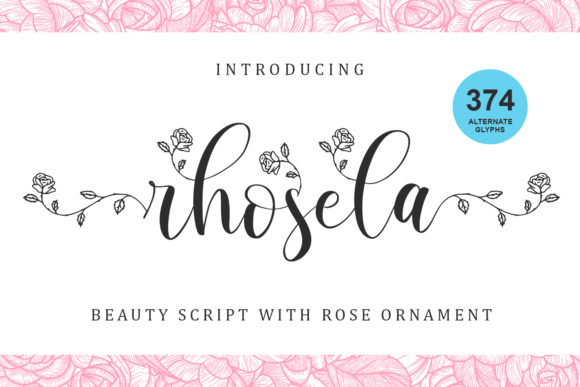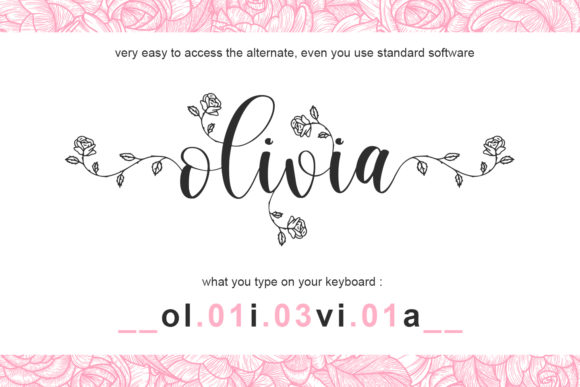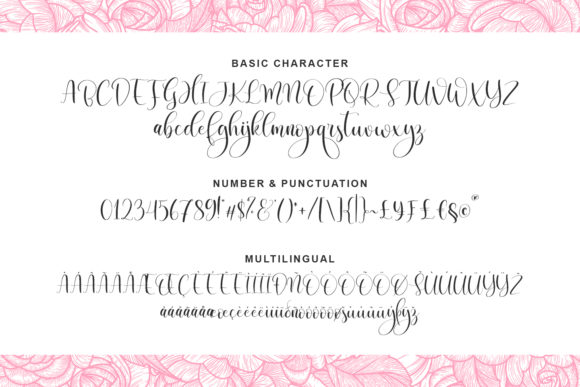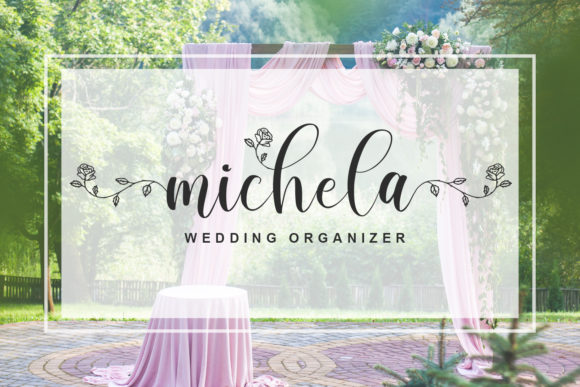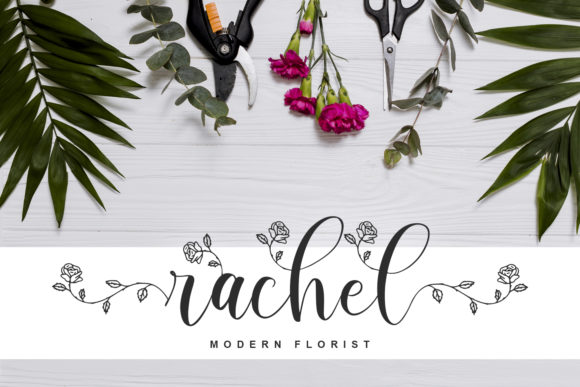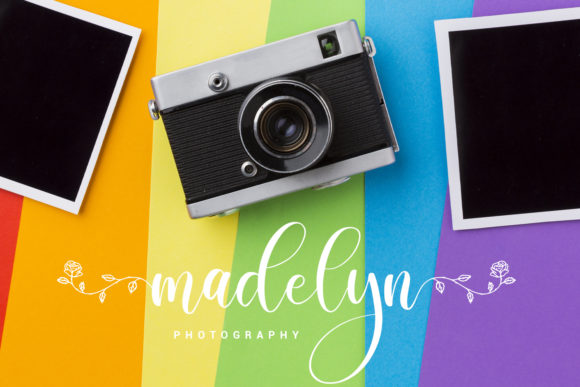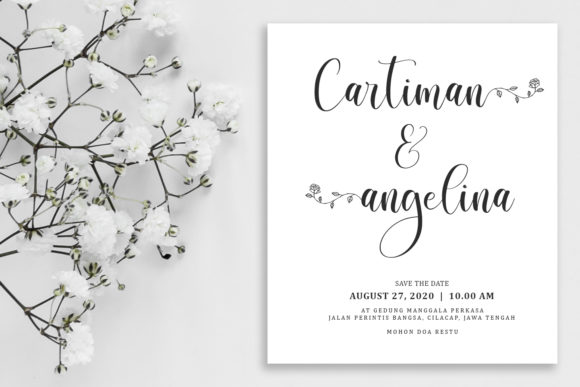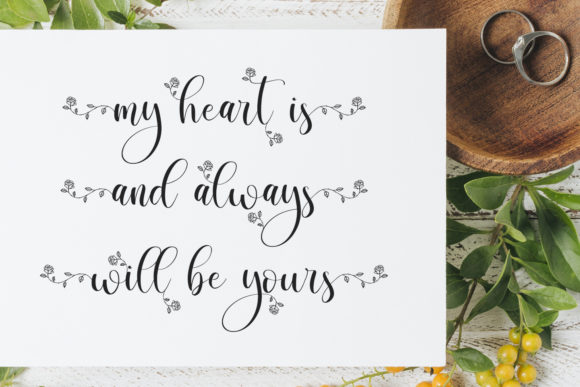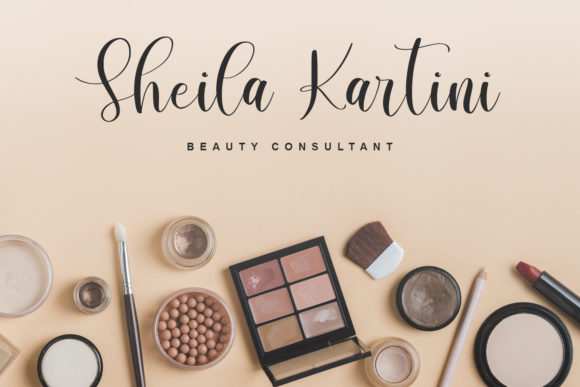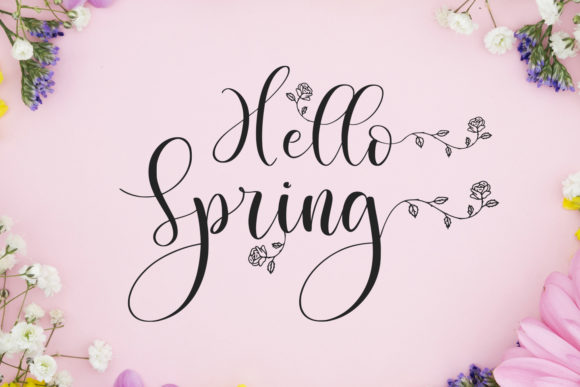
Rhosela Font
About Rhosela Font
Rhosela is a gorgeous handwritten font. It has cute flower-themed characters. Fall in love with its authentic feel and use it to create gorgeous wedding invitations, beautiful stationary art, eye-catching social media posts, and cute greeting cards.